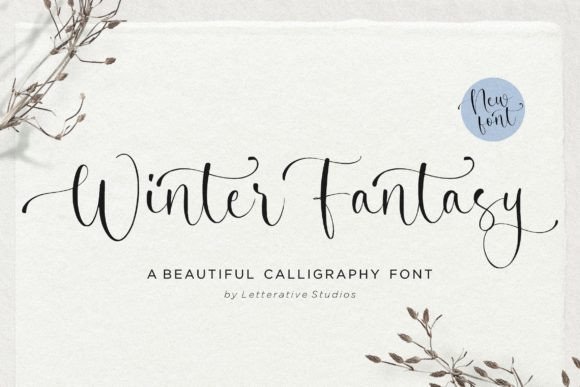
Introducing Winter Fantasy Font - the perfect font to add a touch of elegance and charm to all your creative projects. Created by letterativestudio, this beautiful calligraphy font is a must-have for anyone looking to elevate their designs and captivate their audience.
Are you searching for the perfect font to make your wedding invitations stand out? Look no further, Winter Fantasy is here to make your dreams come true. With its delicate strokes and graceful curves, this font adds a romantic and whimsical touch to any invitation, setting the tone for a truly magical celebration.
But Winter Fantasy doesn't stop at weddings. This versatile font is a great choice for bloggers looking to add a personal and unique touch to their posts. Whether you're writing about your latest travel adventures or sharing your favorite recipes, Winter Fantasy will make your content visually stunning and unforgettable.
If you're a business owner, Winter Fantasy is the font you need to make a lasting impression. Create a remarkable logo that speaks volumes about your brand's elegance and sophistication. Design beautiful frames to showcase your products or create eye-catching marketing materials that will make your business stand out from the competition.
Book covers, stationery, magazines - Winter Fantasy is the perfect choice for any creative endeavor. Its timeless appeal and attention to detail will ensure that your designs are not only visually appealing but also emotionally captivating. Let Winter Fantasy bring your ideas to life and leave a lasting impression on your audience.
Now is the time to unleash your creativity and let Winter Fantasy Font take center stage in all your projects. Whether you're a professional designer or a creative enthusiast, this font will inspire and empower you to create something truly extraordinary.